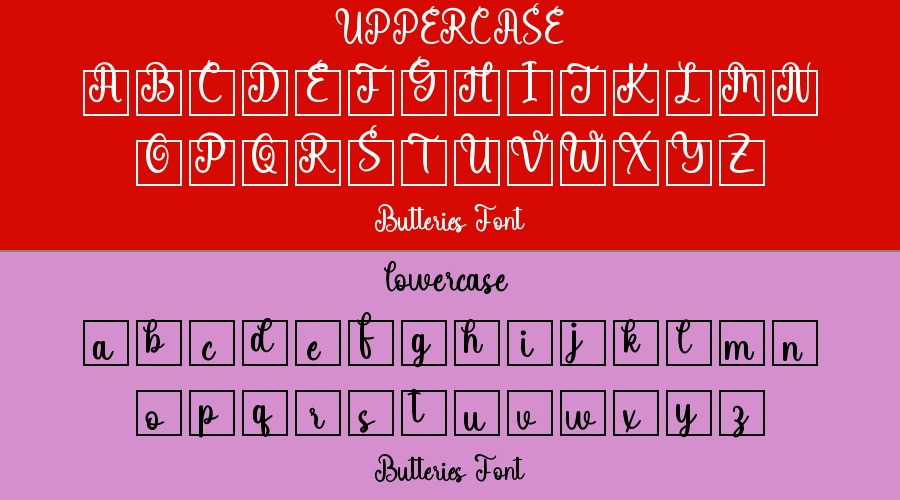
About Butteries Font
Butteries Font embodies typographic excellence through its masterful combination of harmonious shapes and traditional values. Created for branding projects, this typeface delivers exceptional refinement and classic beauty across all applications. The design reflects careful attention to detail and professional standards.
Advanced capabilities include distinctive concave curves and versatile period-specific forms, giving designers creative control. When used in colophons, Butteries Font exhibits remarkable microfilm readability. The harmonious balance between contrast level and market positioning sets this typeface apart.